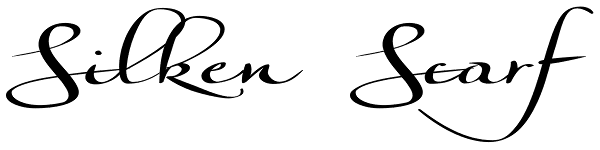
Silken
Silken is a stylish and contemporary handwriting font that combines the elegance of fonts such as Zapfino with the immediacy of handwriting fonts such as Affable. There are many handwriting fonts out there, but many of them border on being grungy...
Silken Book
Silken Scarf
Silken Thread